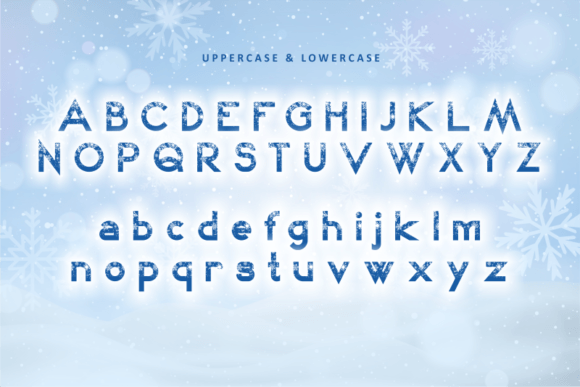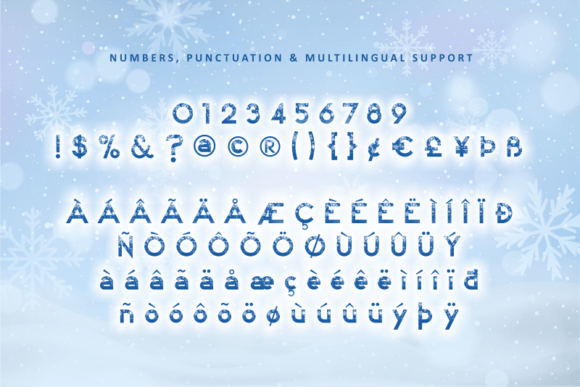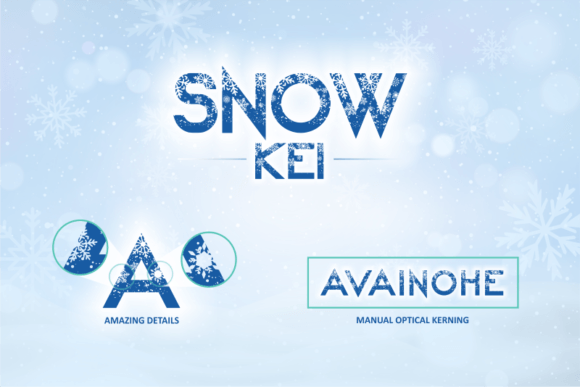
Introduction to Snow Kei Font
Snow Kei is a sweet and cozy display font that features fun wintery details.
It will easily evoke the feel of days in the snow .